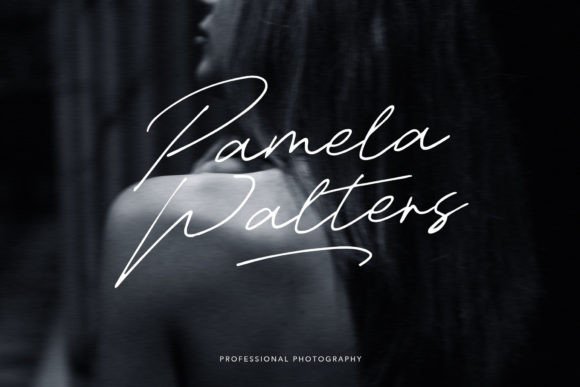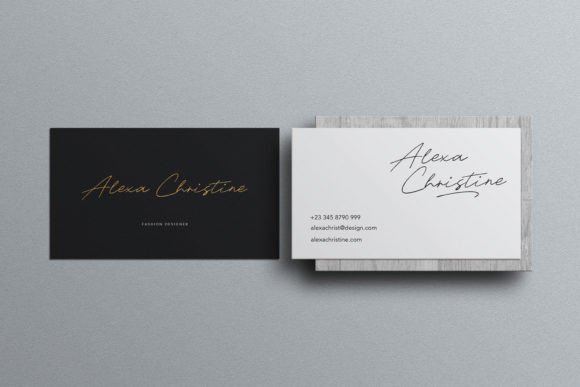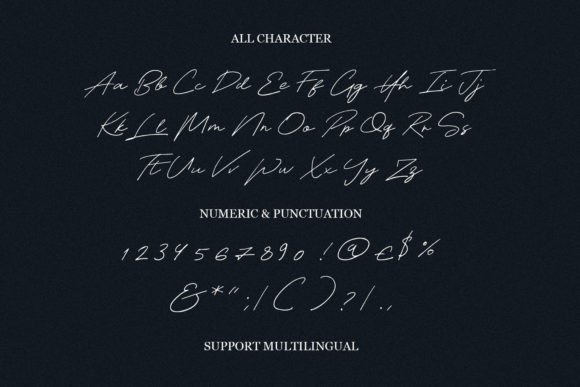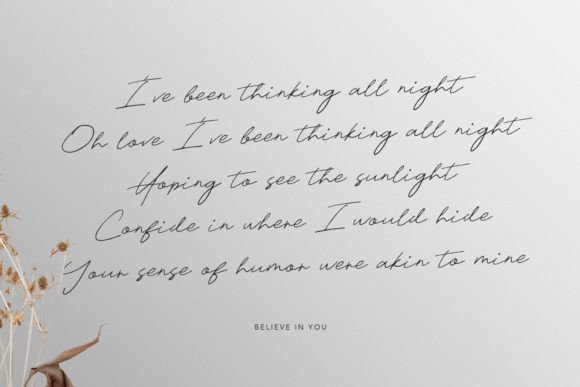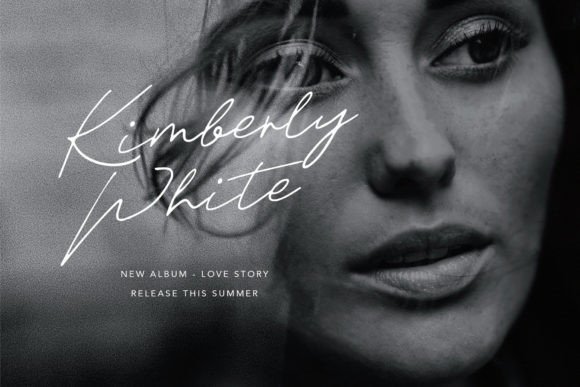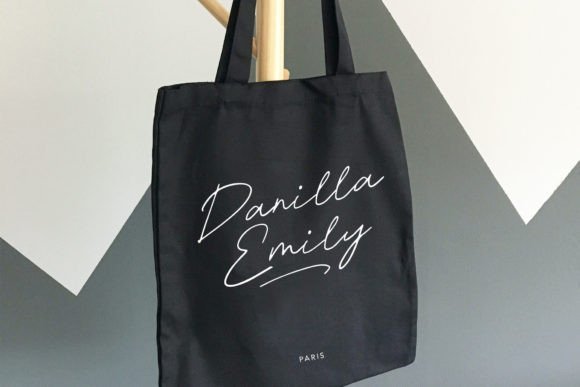
Gilbertson Font: Elevate Your Design with Elegance and Chic
In the world of typography, fonts play a crucial role in conveying the tone and personality of a design. For those seeking an elegant and chic handwritten font, Gilbertson is an excellent choice. This beautiful font is perfect for designers and crafters looking to add a touch of class to their projects. In this article, we’ll explore the features and uses of Gilbertson Font, and why it’s a must-have for any design enthusiast.
What is Gilbertson Font?
Gilbertson is a stylish and sophisticated handwritten font, designed to bring a touch of elegance to any design project. Its smooth, flowing lines and delicate curves make it perfect for creating visually appealing text. The font’s unique charm and character make it ideal for a wide range of applications, from logos and branding to wedding invitations and social media graphics.
Key Features of Gilbertson Font
• Elegant and Chic: Gilbertson boasts a refined and sophisticated aesthetic, making it perfect for designs that require a high-end look.
• Handwritten Style: The font’s handwritten style adds a personal touch to any design, making it ideal for projects that require a human touch.
• Versatile: Gilbertson can be used for a wide range of design projects, from logos and branding to wedding invitations and social media graphics.
• Easy to Read: The font’s clear and legible design makes it easy to read, even at small sizes.
Uses of Gilbertson Font
Gilbertson’s versatility makes it suitable for a wide range of design projects. Here are some ideas to get you started:
• Logos and Branding: Use Gilbertson to create a sophisticated and memorable logo for your business or brand.
• Wedding Invitations: Add a touch of elegance to your wedding invitations with Gilbertson’s beautiful handwritten style.
• Business Cards: Create professional and stylish business cards with Gilbertson’s clear and legible design.
• Greeting Cards: Use Gilbertson to create beautiful and heartfelt greeting cards for any occasion.
• Signboards and Posters: Gilbertson’s bold and eye-catching design makes it perfect for signboards and posters.
• Magazines and Social Media: Use Gilbertson to add a touch of elegance to your magazine layouts and social media graphics.
• Planner Prints: Create stylish and functional planner prints with Gilbertson’s clear and legible design.
• Crafting: Use Gilbertson to add a personal touch to your crafting projects, such as handmade cards and gift tags.
• Websites: Gilbertson’s elegant and chic design makes it perfect for use on websites, particularly those in the luxury or lifestyle niches.
Why Choose Gilbertson Font?
With so many fonts available, why choose Gilbertson? Here are just a few reasons:
• Unique Style: Gilbertson’s handwritten style sets it apart from other fonts, making it perfect for designers looking for something unique.
• Elegant and Sophisticated: Gilbertson’s elegant and sophisticated design makes it perfect for high-end designs.
• Versatile: Gilbertson’s versatility makes it suitable for a wide range of design projects.
In conclusion, Gilbertson Font is a beautiful and elegant handwritten font that’s perfect for designers and crafters looking to add a touch of class to their projects. Its versatility, unique style, and ease of use make it a must-have for any design enthusiast. Whether you’re creating logos, branding, wedding invitations, or social media graphics, Gilbertson is an excellent choice. So why not give Gilbertson a try and elevate your designs with elegance and chic?